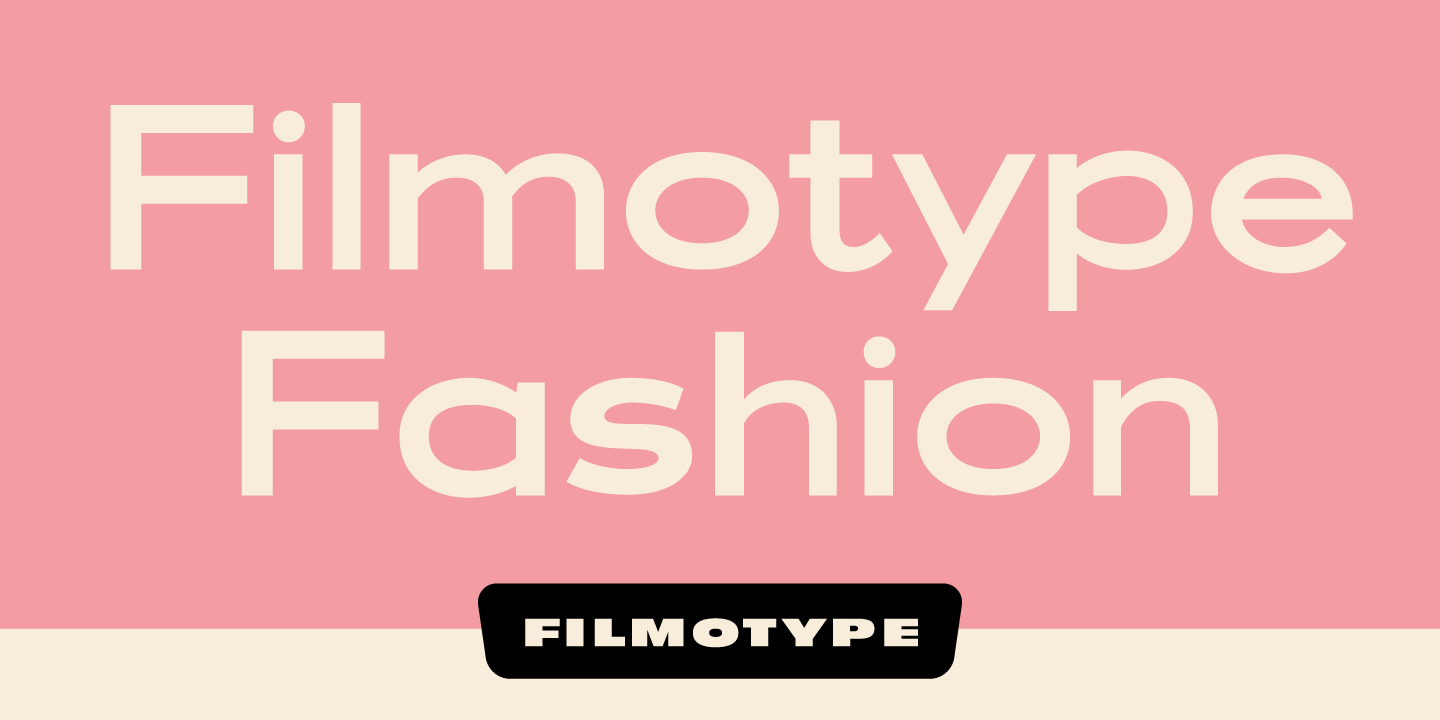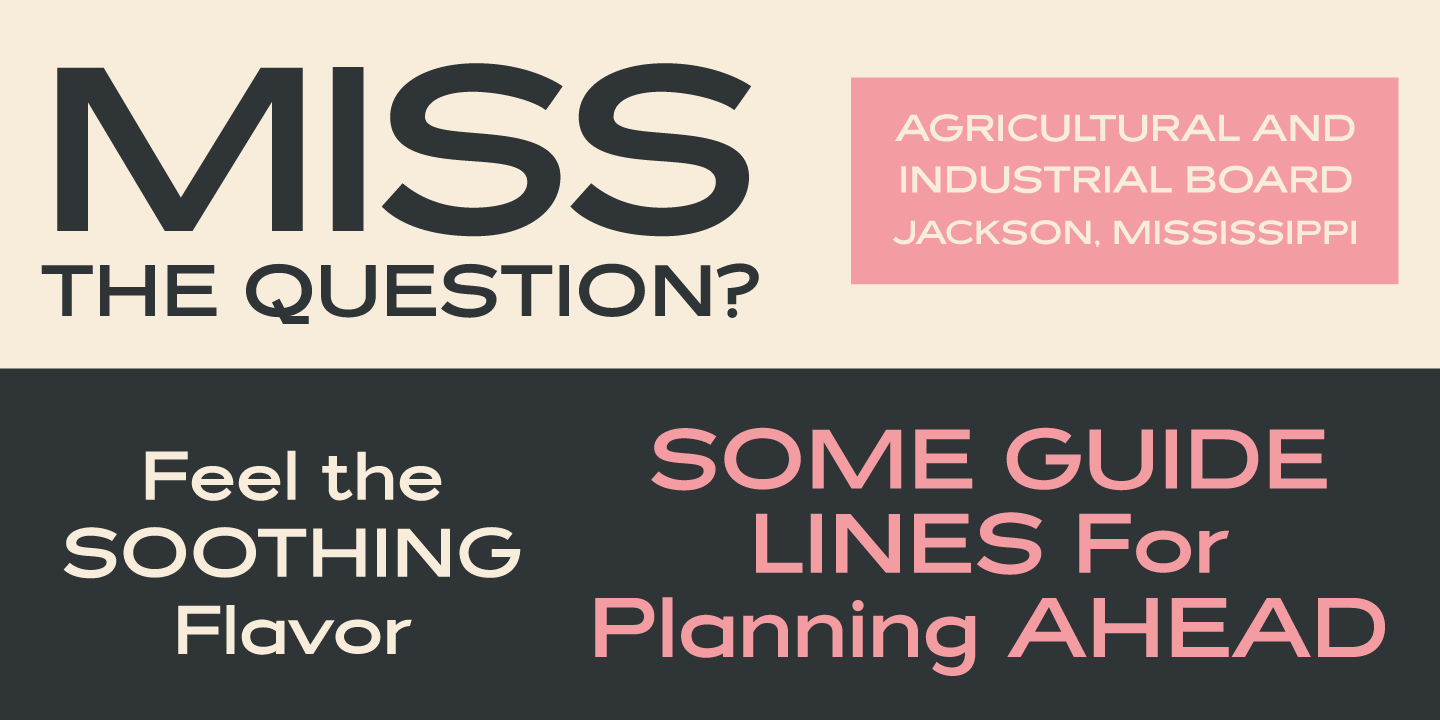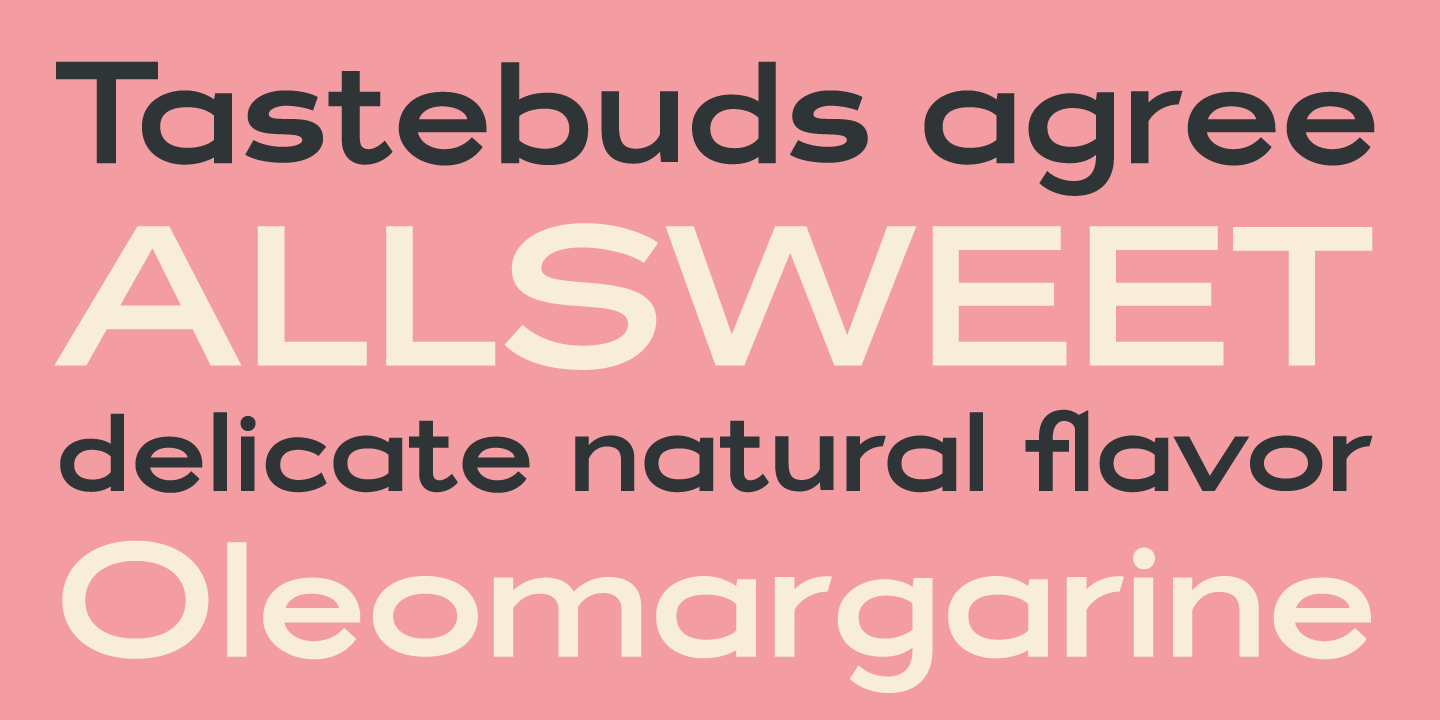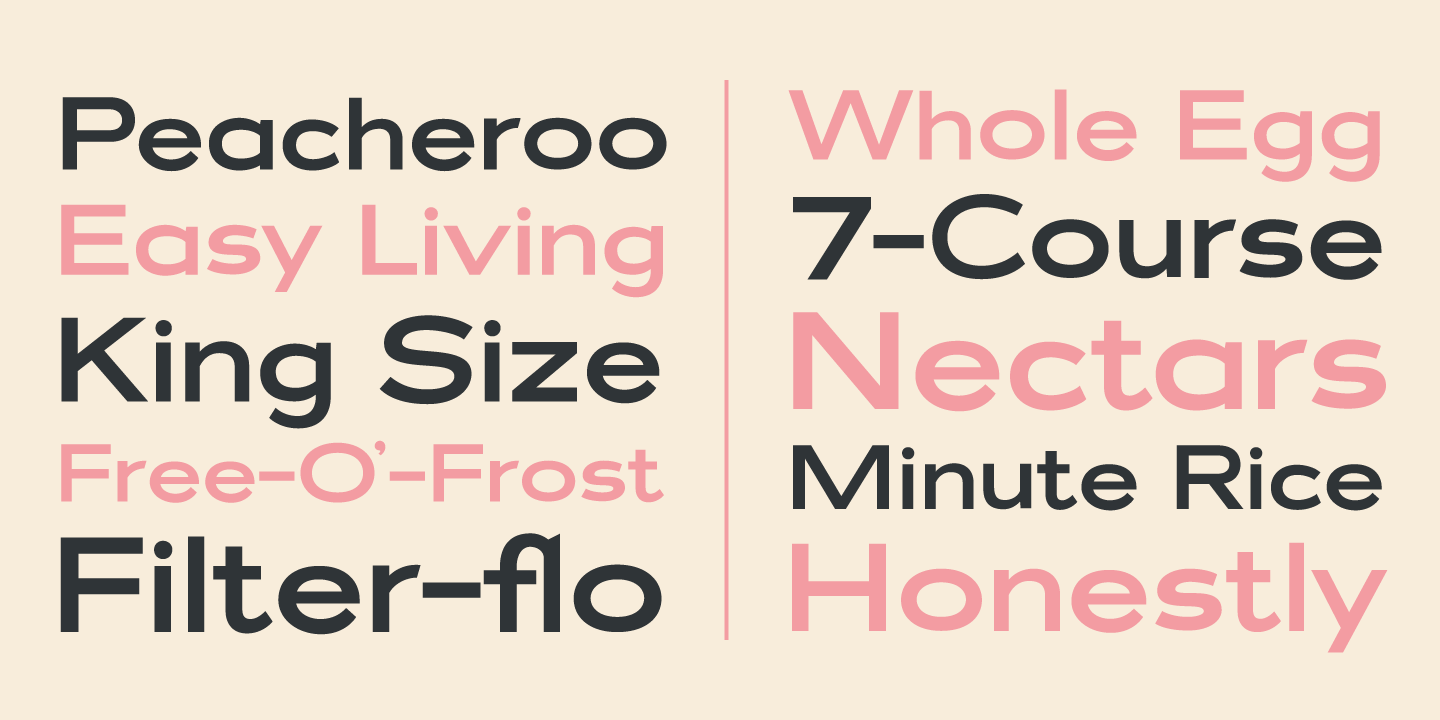
Filmotype Fashion
Initially designed in the early-to-mid 1950s, Filmotype Fashion picks up where Futura left off. With a looser take on a geometric design and drawn wider to capture a more sophisticated 1960s visual aesthetic, it retains a classic and timeless feel. Remastered and expanded with exacting precision from the original filmstrips, Filmotype Fashion includes a full international character compliment, automatic fractionals, ordinals, and a suite of alternates in dynamic OpenType format.
The Filmotype Fashion font family includes 402 glyphs.